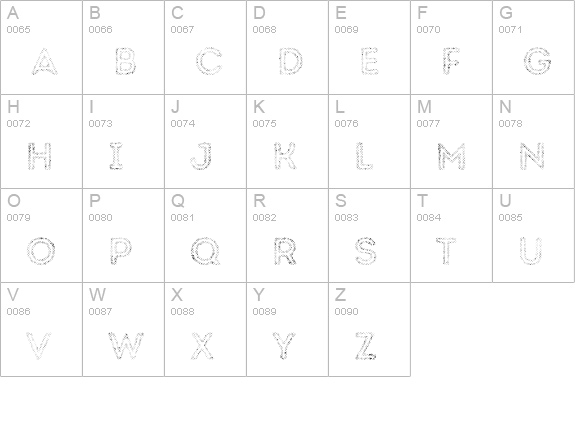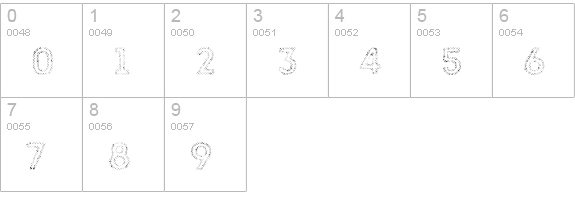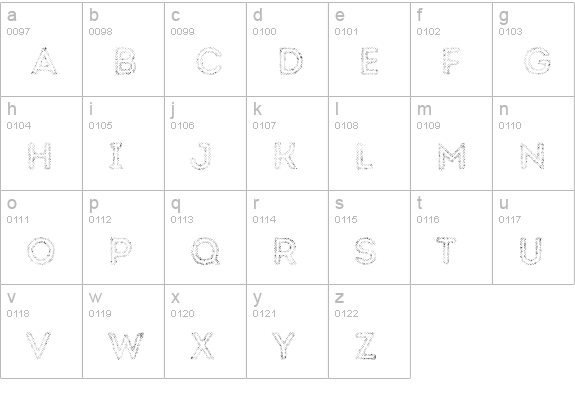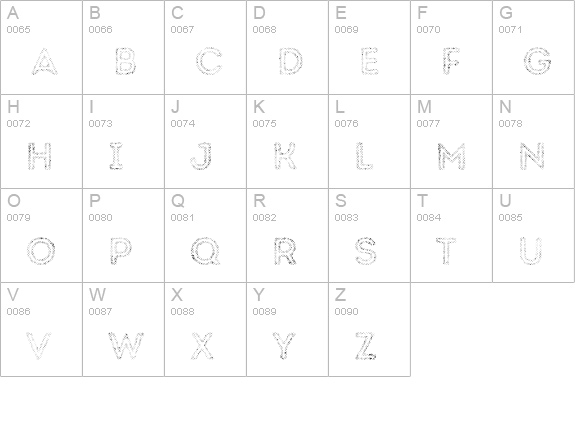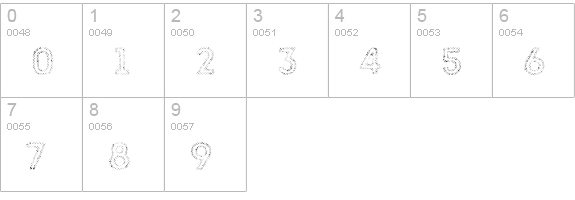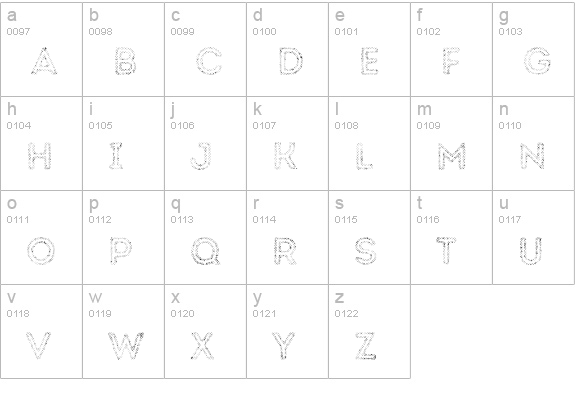
Intro Rust H2 Fill 2 Font Details
Intro Rust H2 Fill 2 is a versatile and eye-catching display font that exudes a modern and edgy vibe. This unique typeface is perfect for making a statement in your designs, whether you're working on branding, posters, or any other creative project. The bold and dynamic letterforms of Intro Rust H2 Fill 2 will grab attention and add a touch of sophistication to your work. Best of all, Intro Rust H2 Fill 2 is available for free download at FontsMarket.com. This means you can easily access this stunning font and incorporate it into your projects without any cost. Don't miss out on the opportunity to enhance your designs with the striking style of Intro Rust H2 Fill 2 - download it for free today!